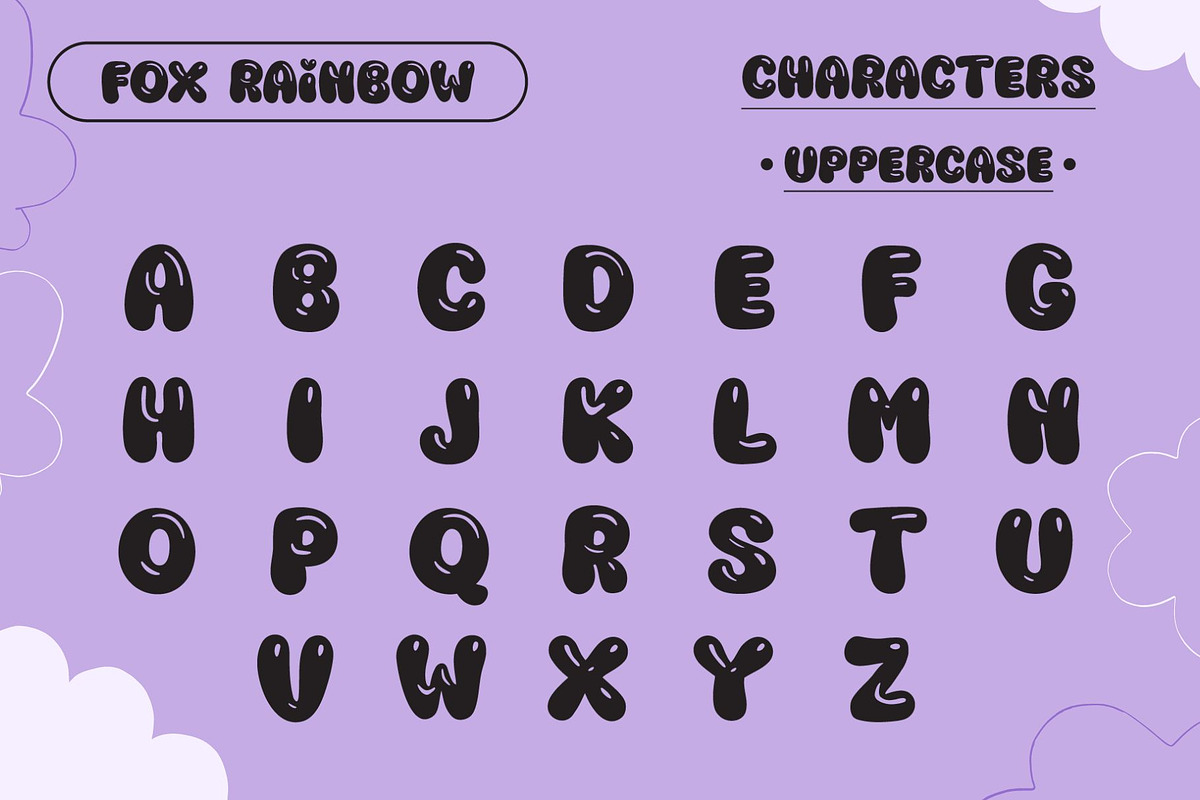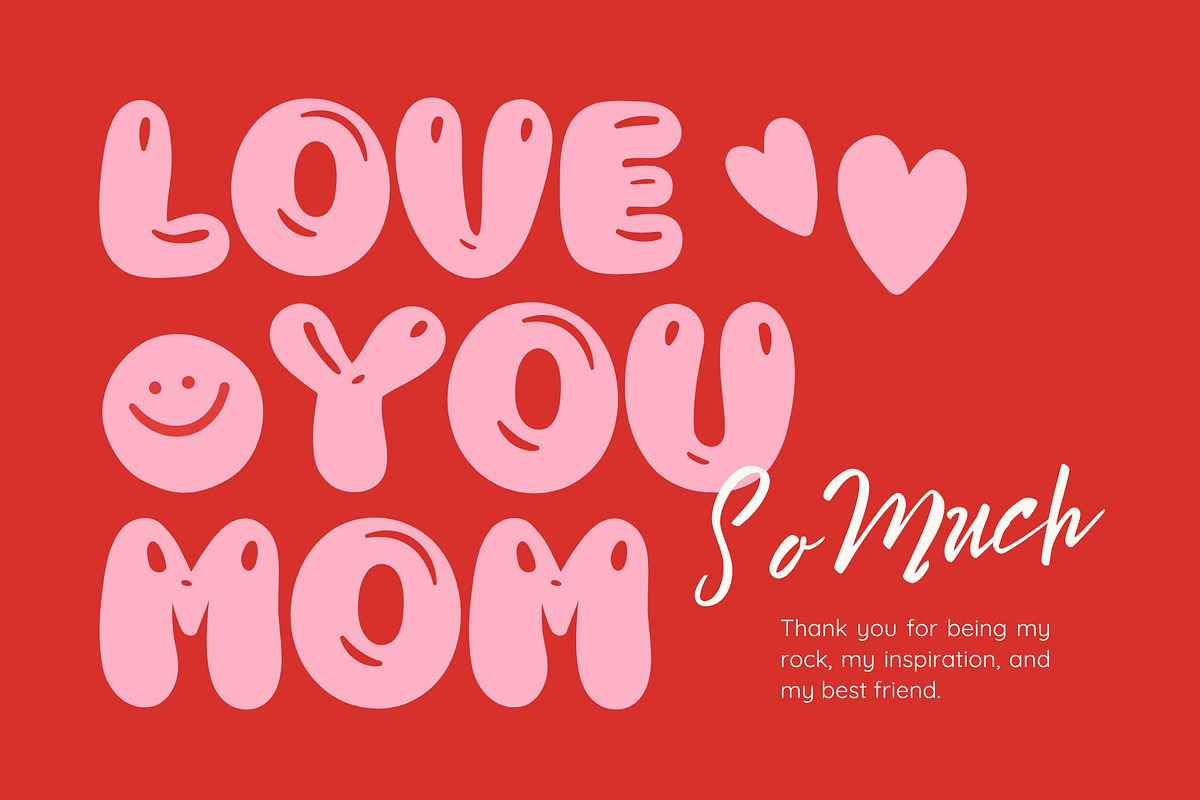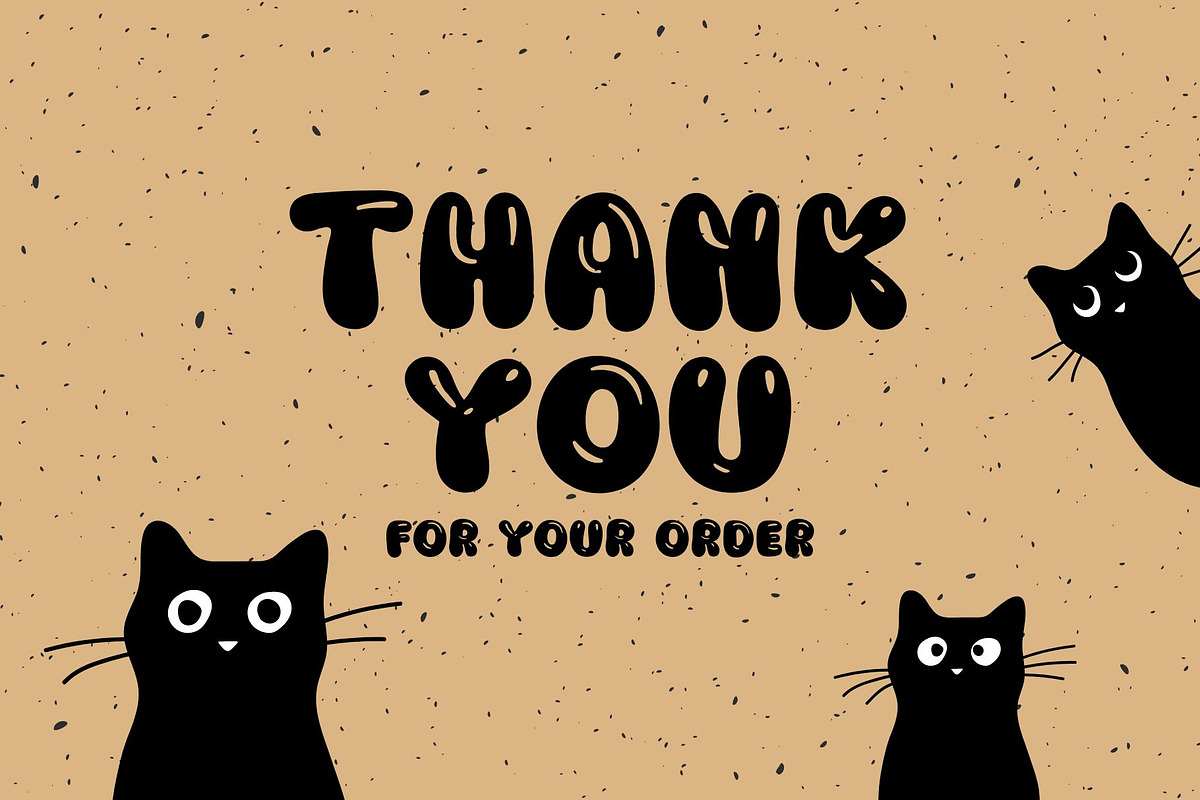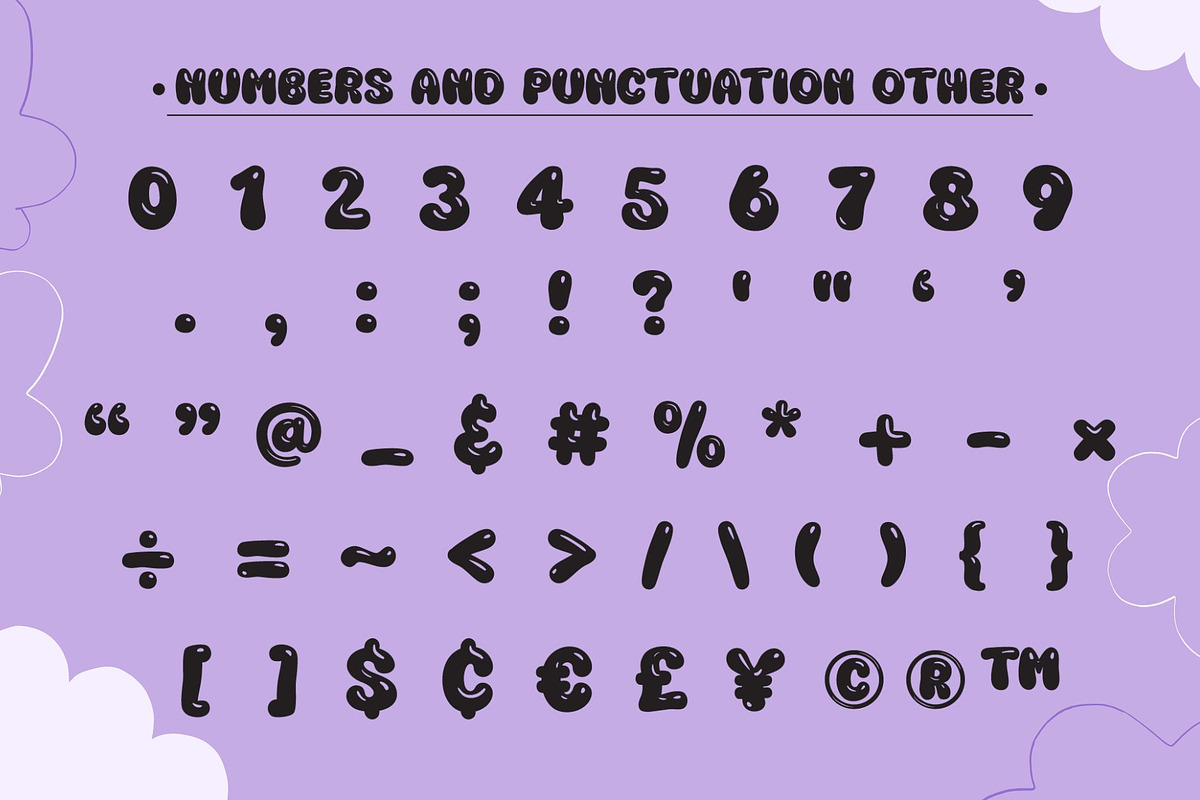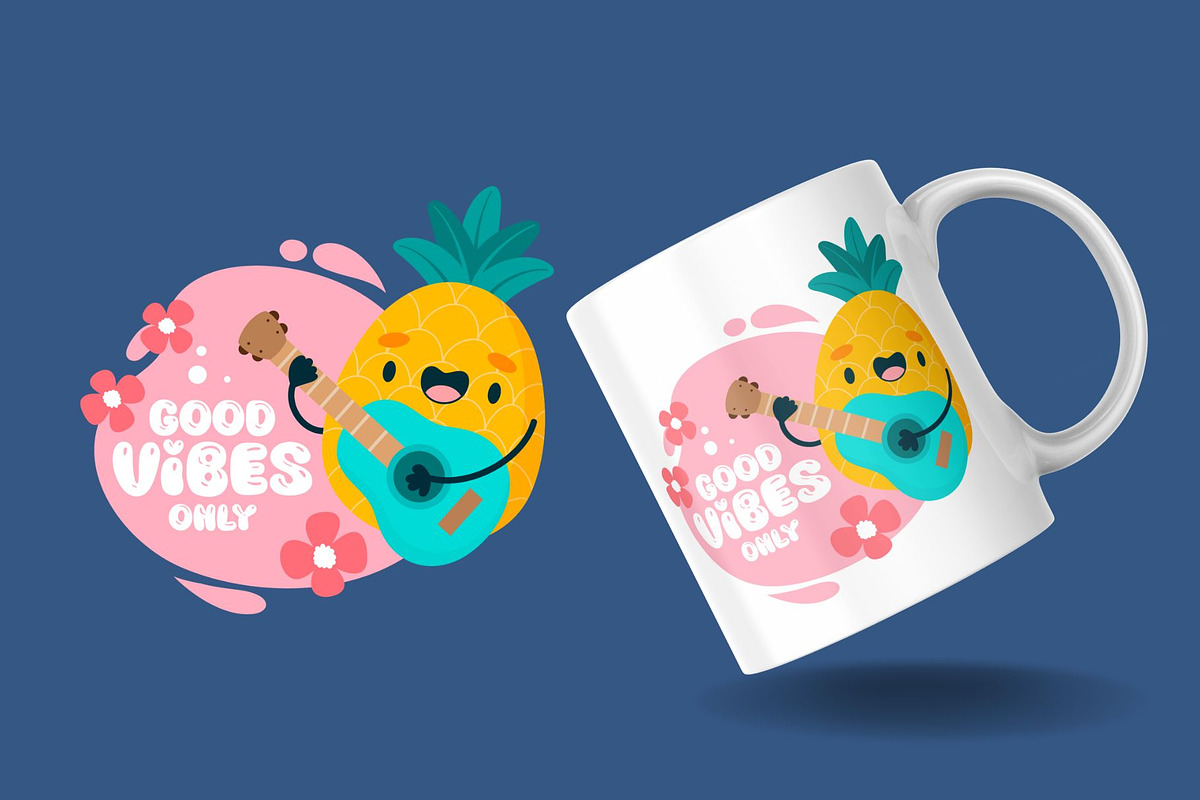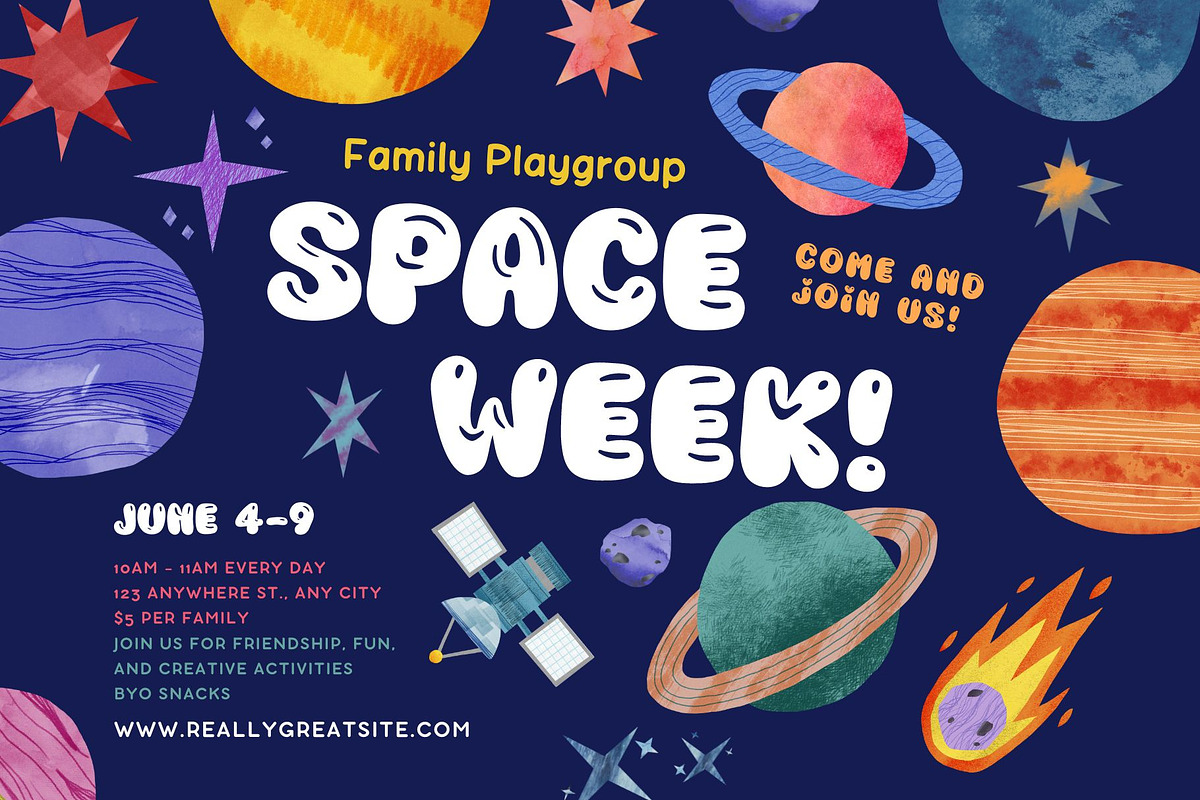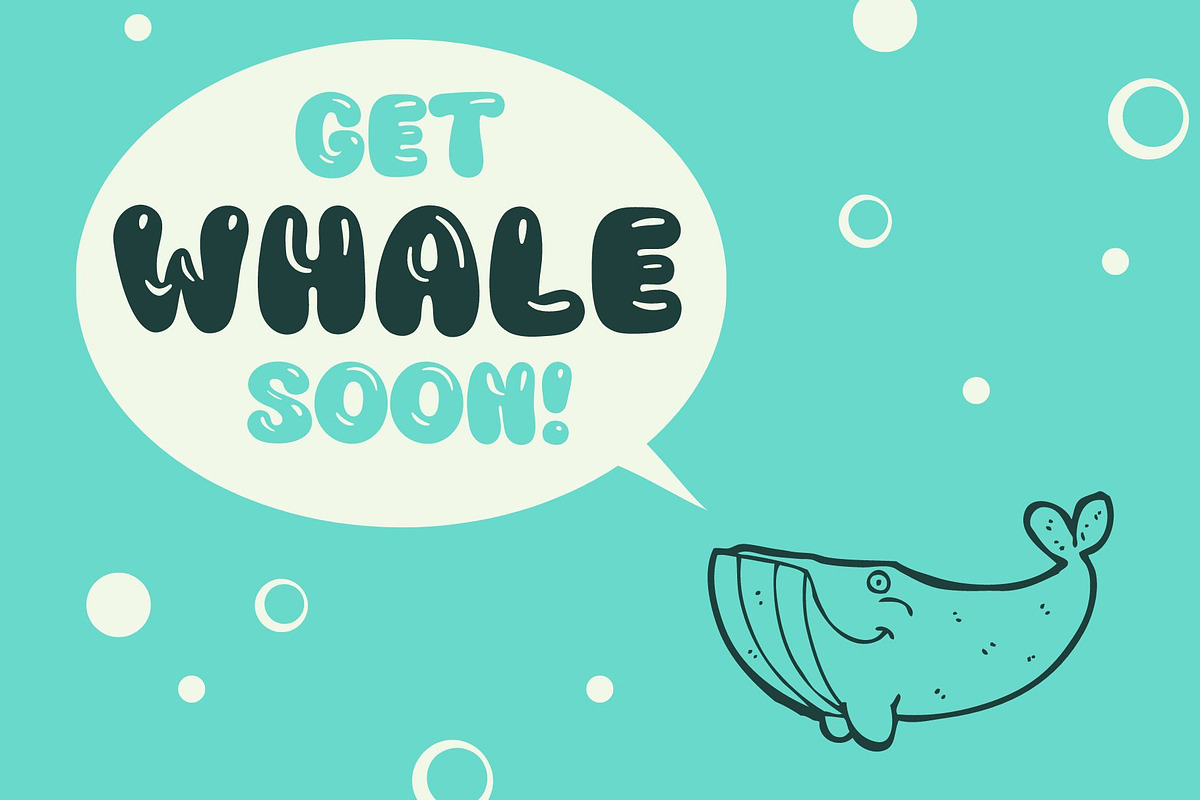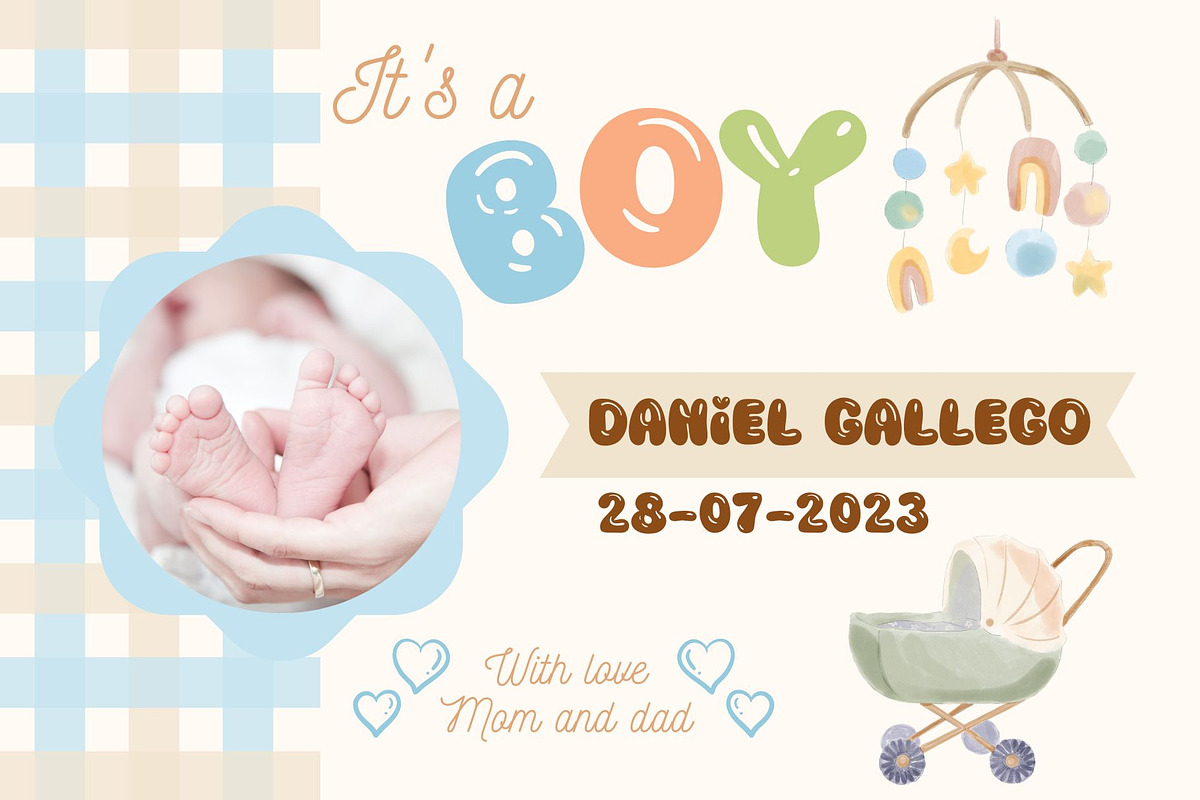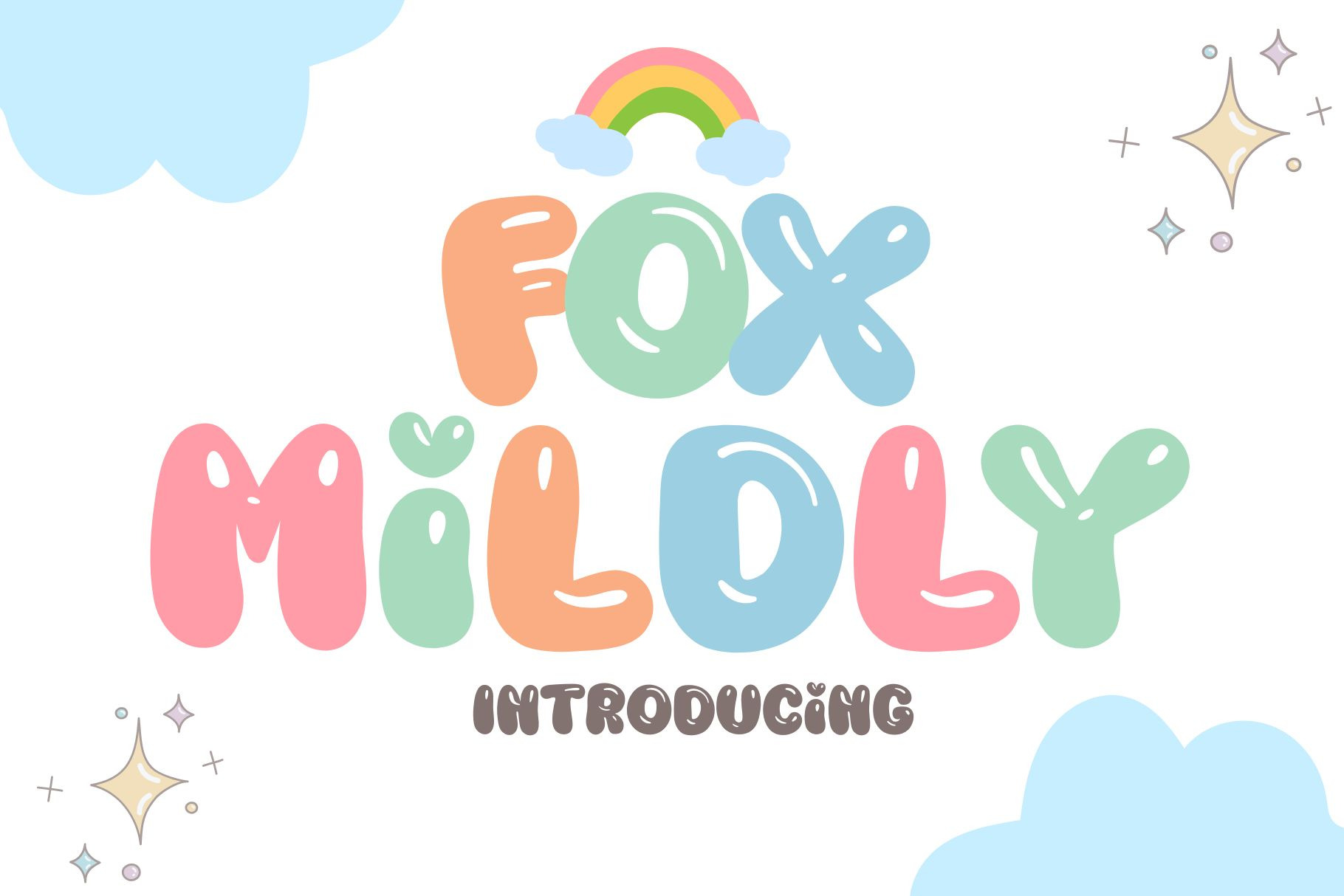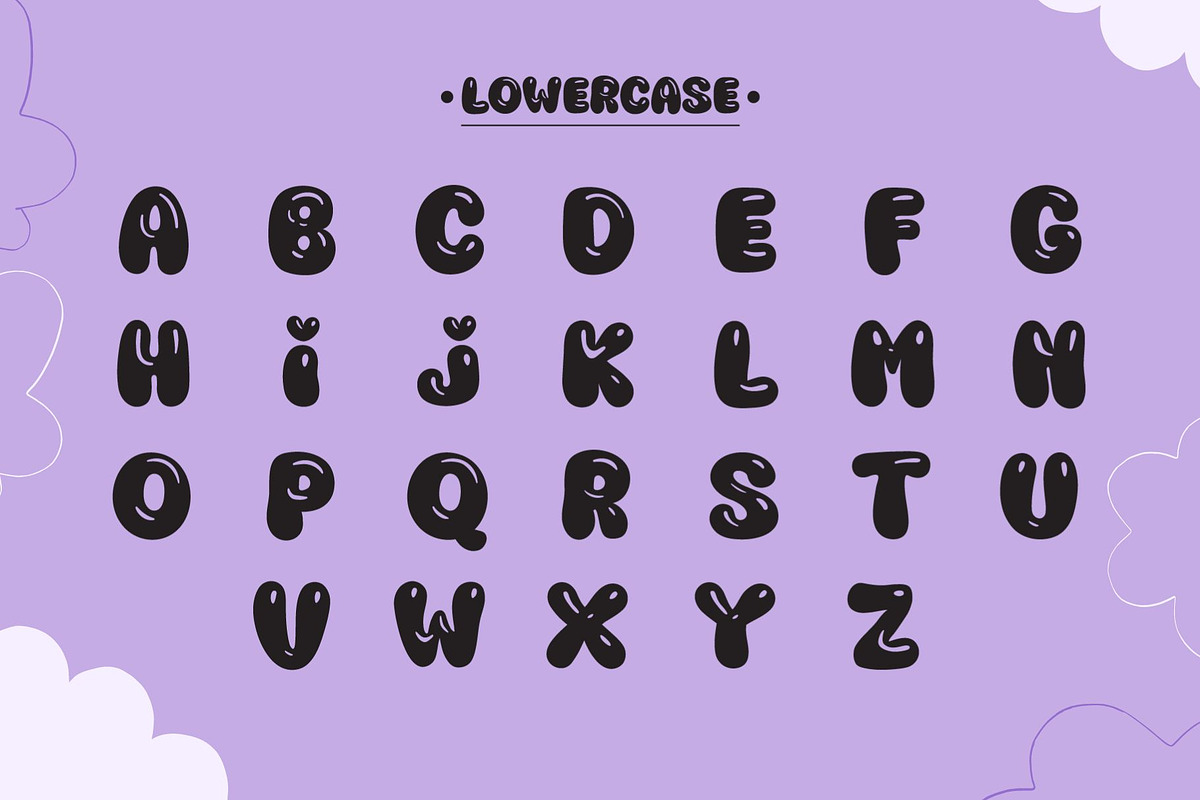
Fox Mildly font
Fox Mildly font is a bold, playful display font that adds a captivating and energetic touch to your designs. With its fun and funky letterforms, this font is perfect for adding a touch of personality to any design project. Whether you’re creating t-shirts, stickers, children’s book covers, social media posts, or anything in between, Fox Mildly font is the perfect choice for making your designs stand out.